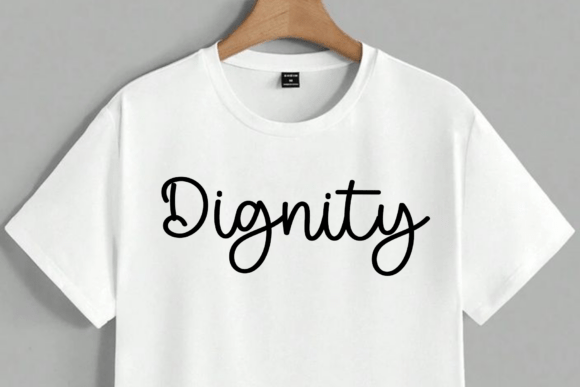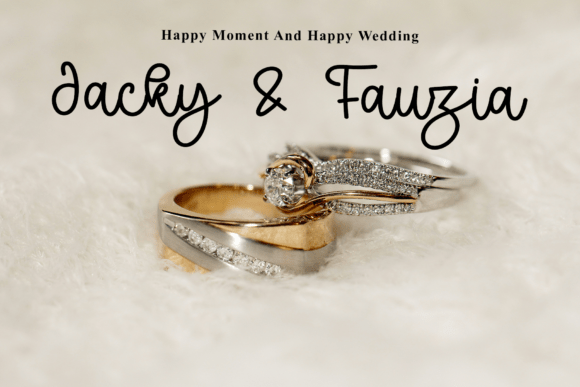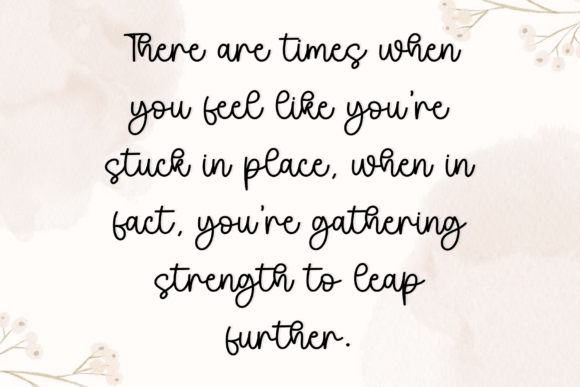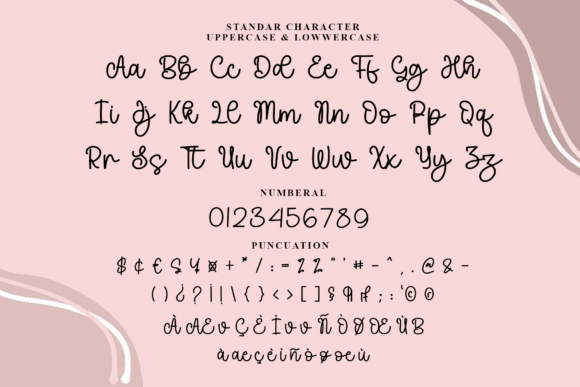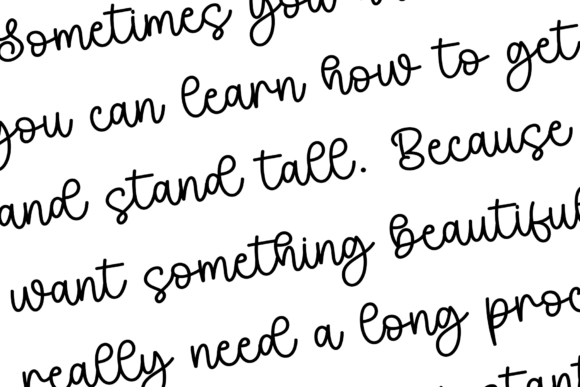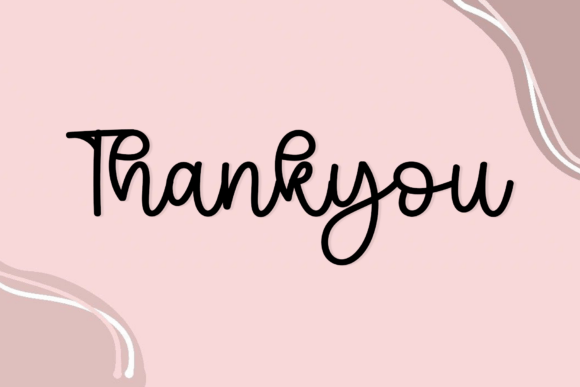
Introducing Gateway Signature Font: Elevate Your Design with Modern Elegance
In the world of typography, a font can make or break the aesthetic of a design. For those seeking to infuse their projects with a touch of sophistication and luxury, Gateway Signature Font is an exceptional choice. This “new style” handwritten script font embodies modern elegance through its fluid, signature-like motion, making it perfect for high-end branding, editorial content, and more.
The Essence of Gateway Signature Font
Gateway Signature Font is characterized by its delicate balance of tall ascenders and graceful, sweeping loops. This harmonious blend creates a rhythmic and sophisticated visual flow that captures the essence of modern elegance. The fluid motion of the font mimics the natural flow of a signature, giving it a personal and bespoke feel that is hard to replicate with more traditional fonts.
Applications of Gateway Signature Font
The versatility of Gateway Signature Font makes it suitable for a wide range of applications, including:
- Luxury Branding: Elevate your brand’s visual identity with a font that exudes class and sophistication. Gateway Signature Font is perfect for creating logos, business cards, and marketing materials that convey a sense of high-end quality.
- Signature Logos: For entrepreneurs, freelancers, and small business owners, a custom signature logo can be a powerful tool for building a personal brand. Gateway Signature Font provides the perfect foundation for creating a unique and memorable logo.
- Wedding Stationery: Add a touch of elegance to your wedding invitations, save-the-dates, and other stationery with Gateway Signature Font. Its sophisticated look and feel make it ideal for formal events.
- High-End Editorial Content: Whether you’re working on a fashion magazine, a luxury lifestyle blog, or a high-end catalog, Gateway Signature Font can help elevate the aesthetic of your content and appeal to a discerning audience.
Why Choose Gateway Signature Font?
With so many fonts available, what sets Gateway Signature Font apart? Here are a few reasons why designers and crafters are drawn to this exceptional font:
- Unique Style: Gateway Signature Font offers a fresh and modern take on traditional script fonts. Its unique style ensures that your designs stand out from the crowd.
- Versatility: From luxury branding to wedding stationery, Gateway Signature Font can be used across a variety of projects, making it a valuable addition to any designer’s toolkit.
- Ease of Use: Despite its sophisticated appearance, Gateway Signature Font is easy to read and works well in both digital and print formats.
- Customization: With its clear and flowing design, Gateway Signature Font can be easily customized to fit your project’s specific needs, whether you’re adjusting the size, color, or integrating it with other fonts.
Tips for Using Gateway Signature Font
To get the most out of Gateway Signature Font, consider the following tips:
- Pair with Complementary Fonts: For maximum impact, pair Gateway Signature Font with sans-serif fonts like Helvetica or Arial. This contrast will help highlight the elegance of the script font.
- Adjust Line Spacing: To maintain readability, especially in longer texts, adjust the line spacing to ensure that the fluid lines of Gateway Signature Font have enough room to breathe.
- Consider Contrast: When using Gateway Signature Font for headings or titles, consider the contrast with your background. A darker color on a light background or vice versa can make the text pop.
Gateway Signature Font is more than just a font – it’s a design statement. Its modern elegance, fluid motion, and sophisticated aesthetic make it the perfect choice for designers and crafters looking to elevate their projects. Whether you’re working on luxury branding, signature logos, wedding stationery, or high-end editorial content, Gateway Signature Font brings an unmistakable touch of class to every word. By incorporating this exceptional font into your design toolkit, you’ll be well on your way to creating visually stunning and memorable projects.